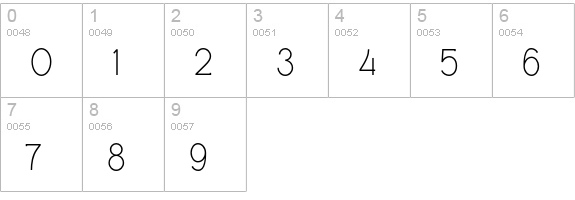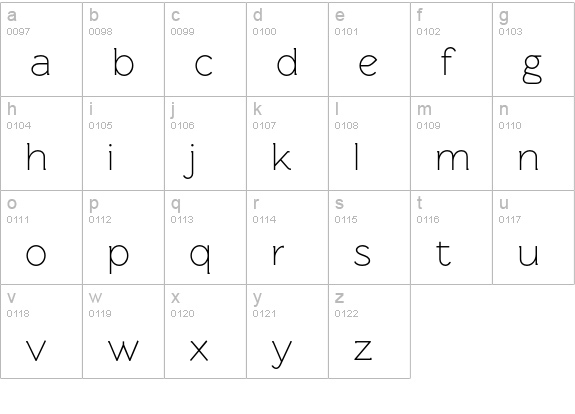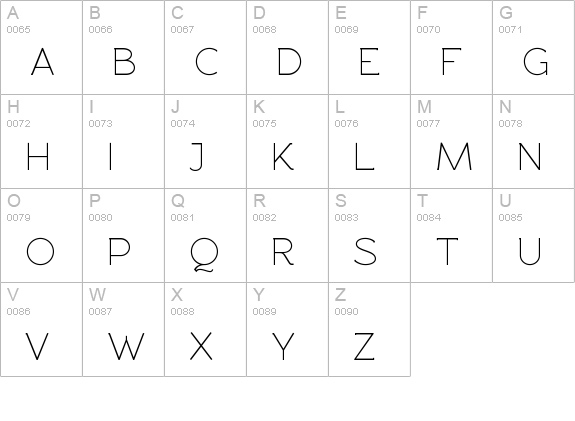
Rawengulk Regular is the standard, neutral variant in the Rawengulk typeface family \xE2\x80\x94 well suited to general body text, paragraphs, and standard typographic work.
Rawengulk Regular is a stunning and versatile typeface that combines the perfect balance of modern elegance and timeless appeal. With its clean lines and graceful curves, this font exudes a sense of sophistication and professionalism that is sure to elevate any design project. Designed with meticulous attention to detail, Rawengulk Regular offers a unique and distinctive look that is both eye-catching and legible. Its carefully crafted letterforms ensure readability across various platforms and sizes, making it suitable for both print and digital applications. One of the most remarkable aspects of Rawengulk Regular is that it is available for free! Yes, you read that right. This exceptional font can be freely downloaded from FontsMarket.com, allowing designers, creatives, and typographers to enhance their work without any financial constraints. Whether you are designing a logo, creating a website, or crafting a brochure, Rawengulk Regular is the perfect choice to add a touch of elegance and sophistication to your project. Its versatility allows it to adapt to a wide range of design styles, making it suitable for various industries and purposes. Don't miss out on the opportunity to elevate your design game with Rawengulk Regular. Download it for free today at FontsMarket.com and discover the endless possibilities this font has to offer. With its exceptional quality and accessibility, Rawengulk Regular is truly a gem in the world of typography.